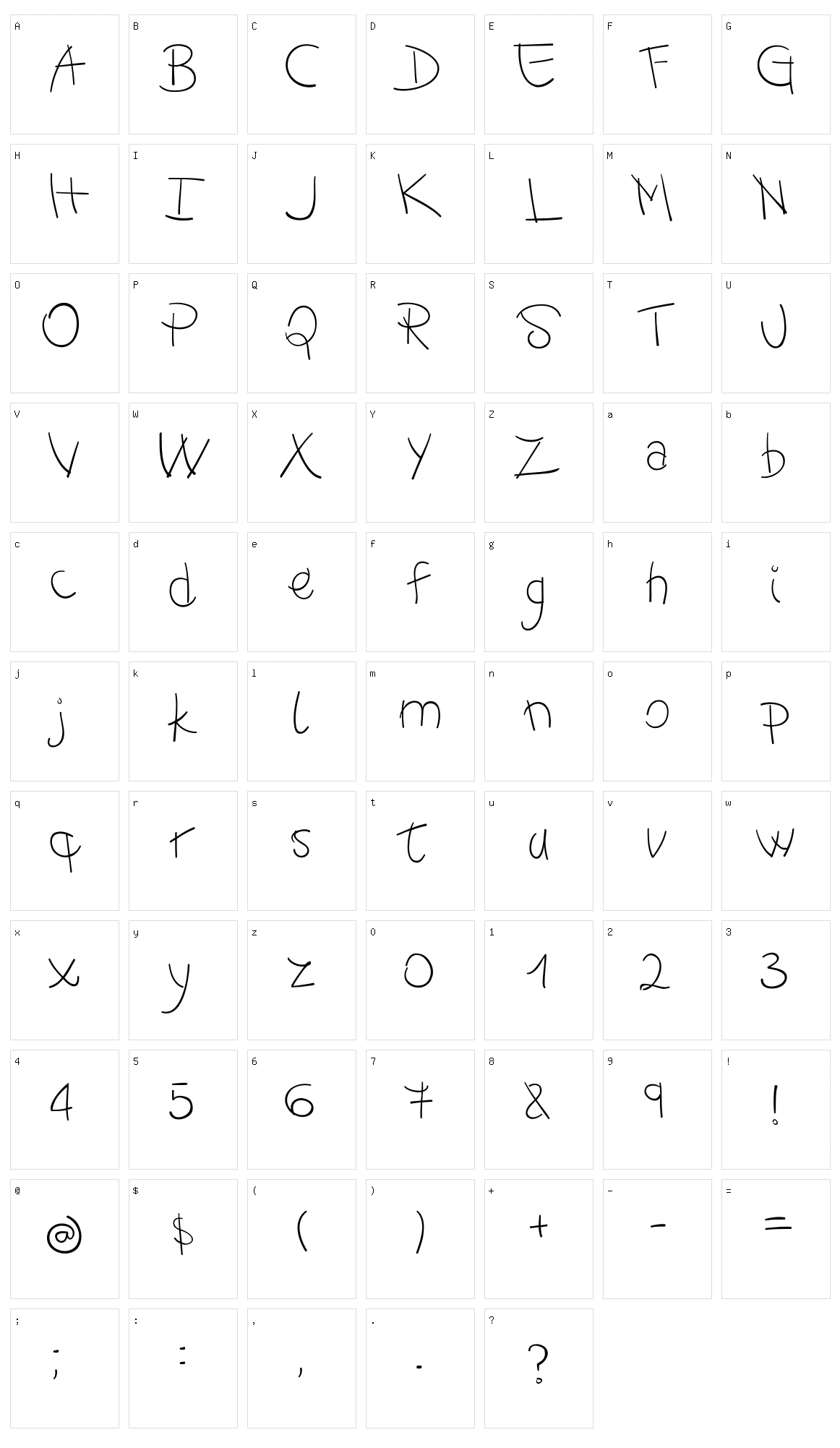
The free font Moody Spaghetty is carefully designed by Camilla Bertoni Berardi, showcasing a thoughtful balance of creativity and usability and falls under the Script font style. When you download the ZIP file, it contains only 23.32 KB of font files, making it lightweight and quick to download. Please review the license details below to understand permitted usage and distribution rights. If license information is not available, we recommend using this font for personal projects only or contacting the author directly for commercial usage permissions.